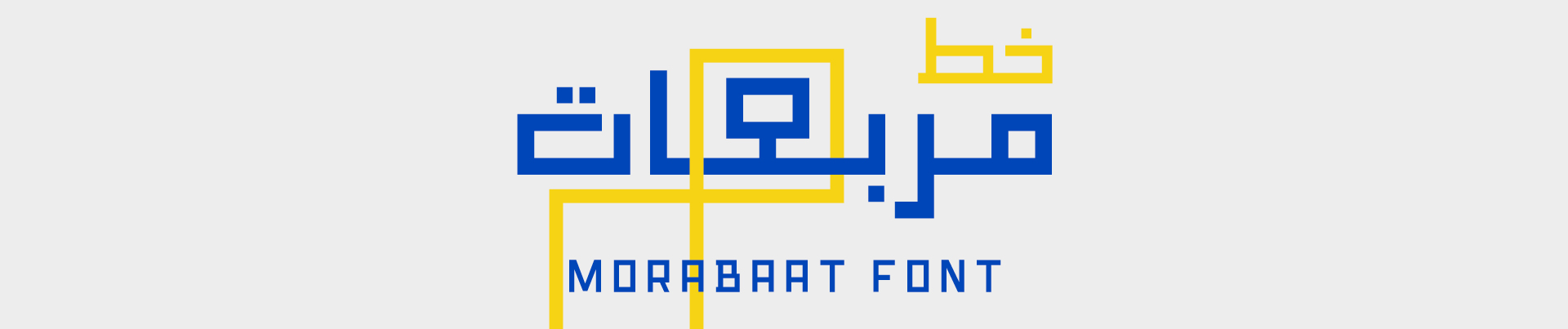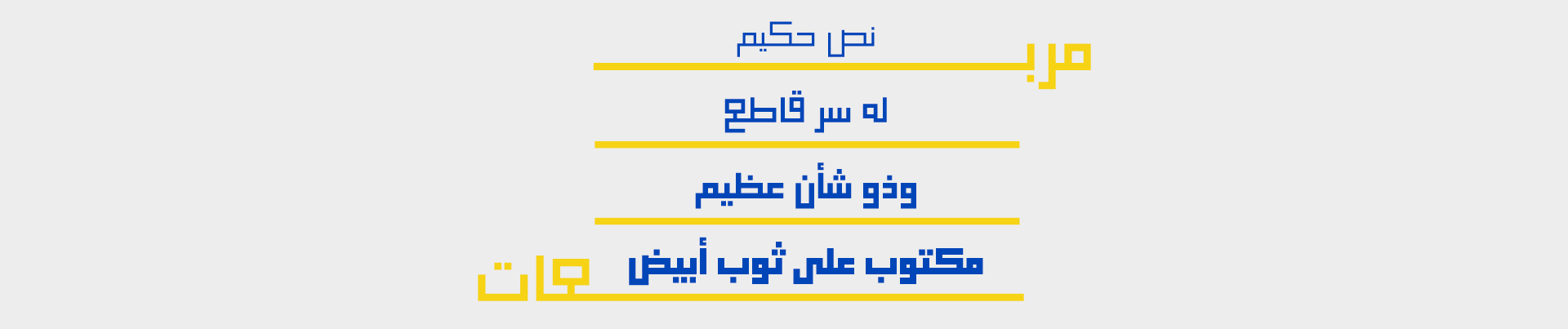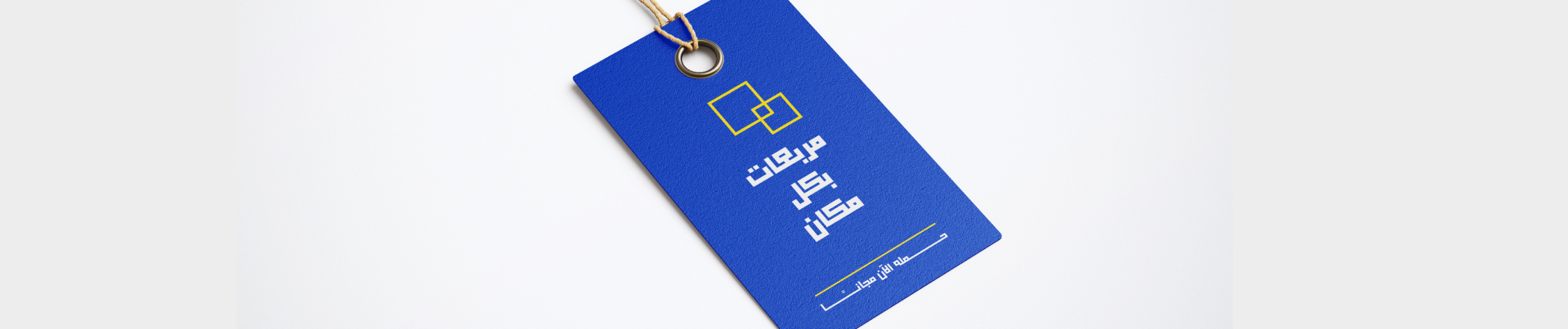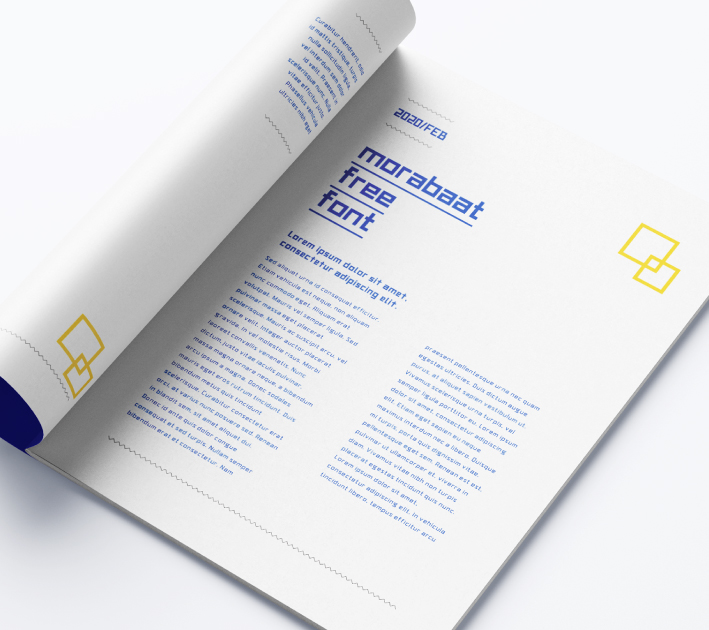
About Morabaat Font
Introduction:
Morabaat is a geometric Kufic Font, It is easy and clear to read.
Weights and Supported Languages:
It has 4 weights and supports Arabic, Persian, Urdu, and Latin.
Usage:
It is suitable for texts, headlines, and social media posters.